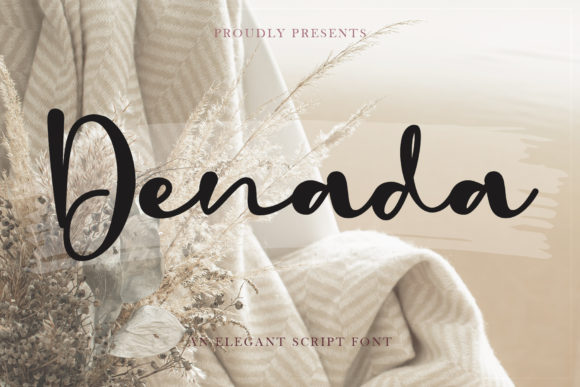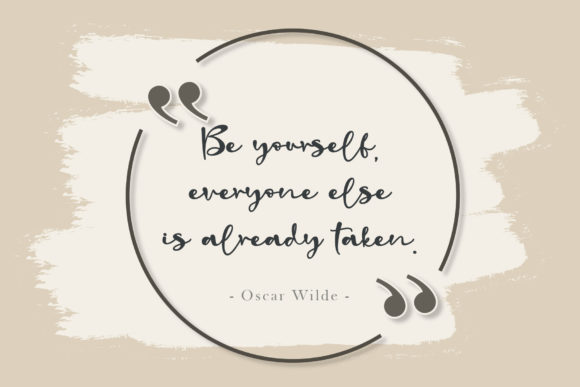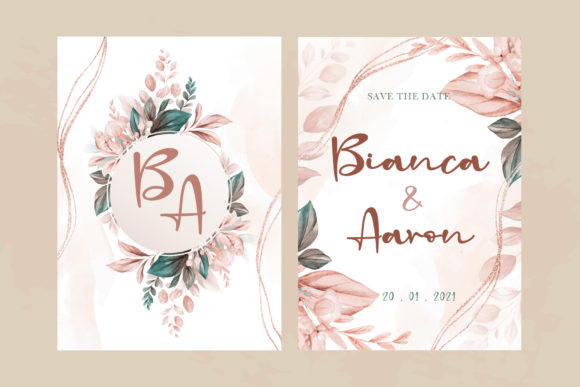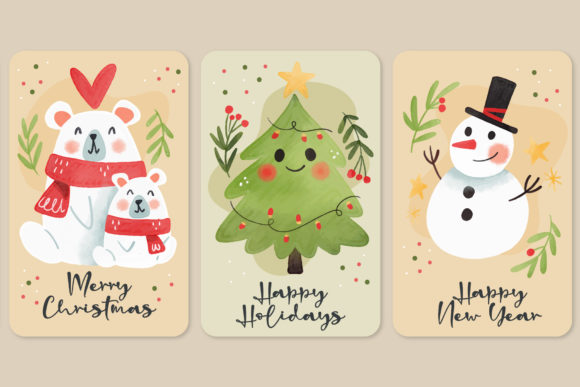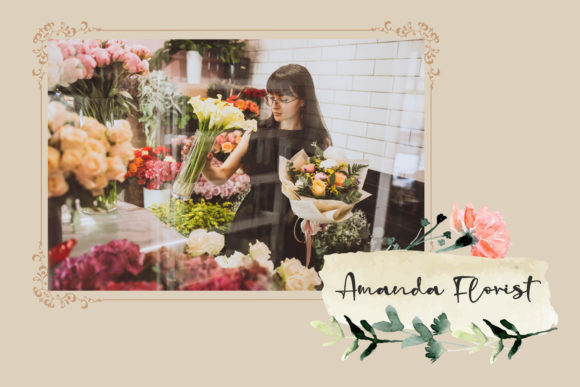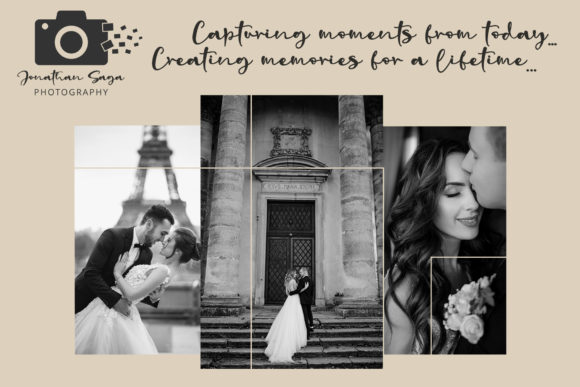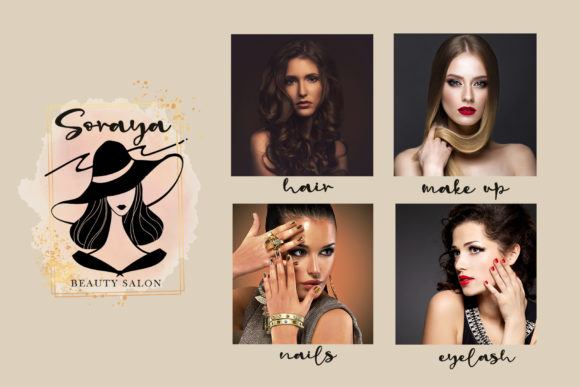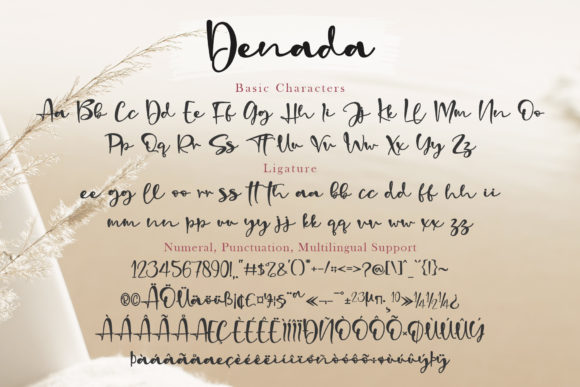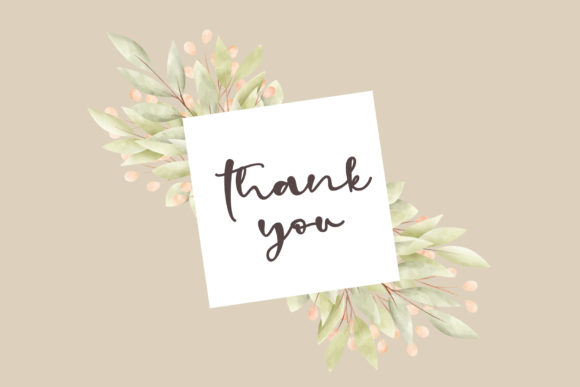
Denada Font
About Denada Font
Denada is a beautiful and flowing handwritten font. Dainty and joyful, this font will be ideal for writing wedding invitations, cards or any other design that may need a romantic, personalized touch!